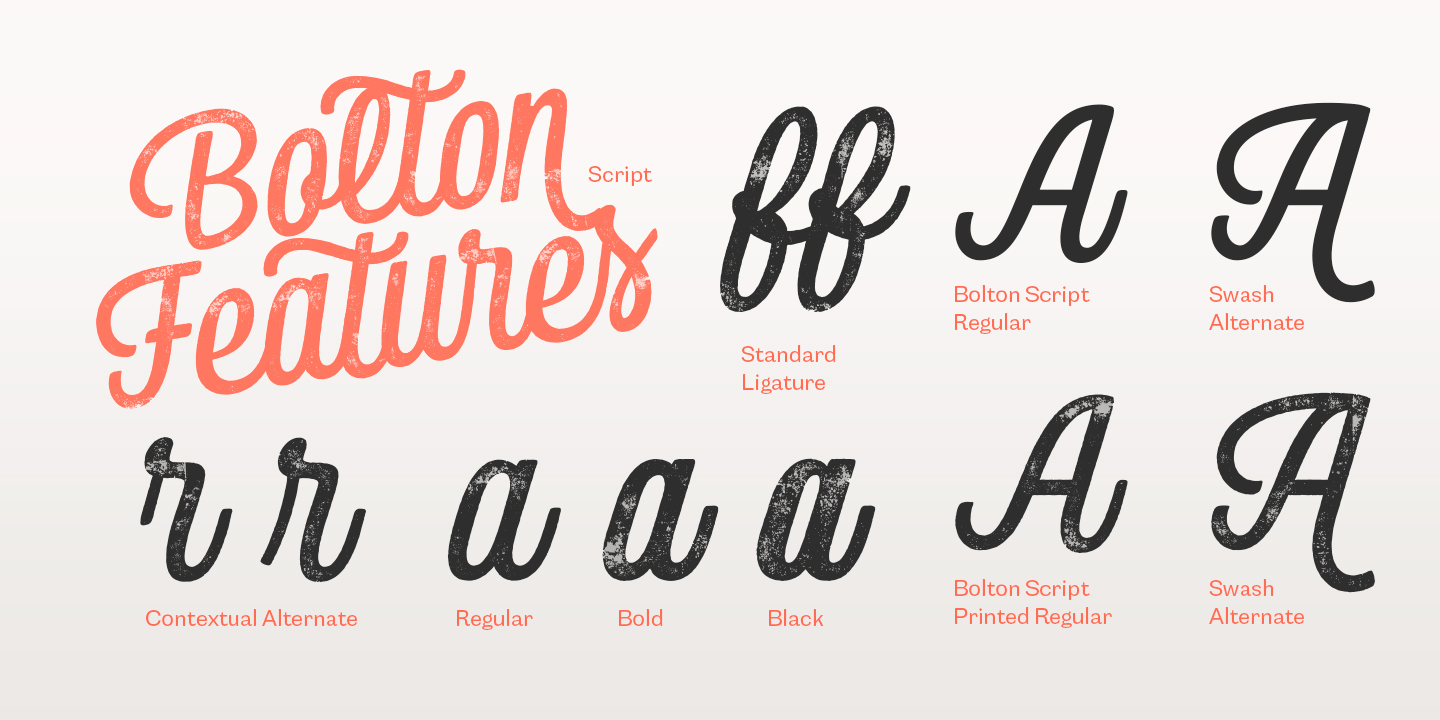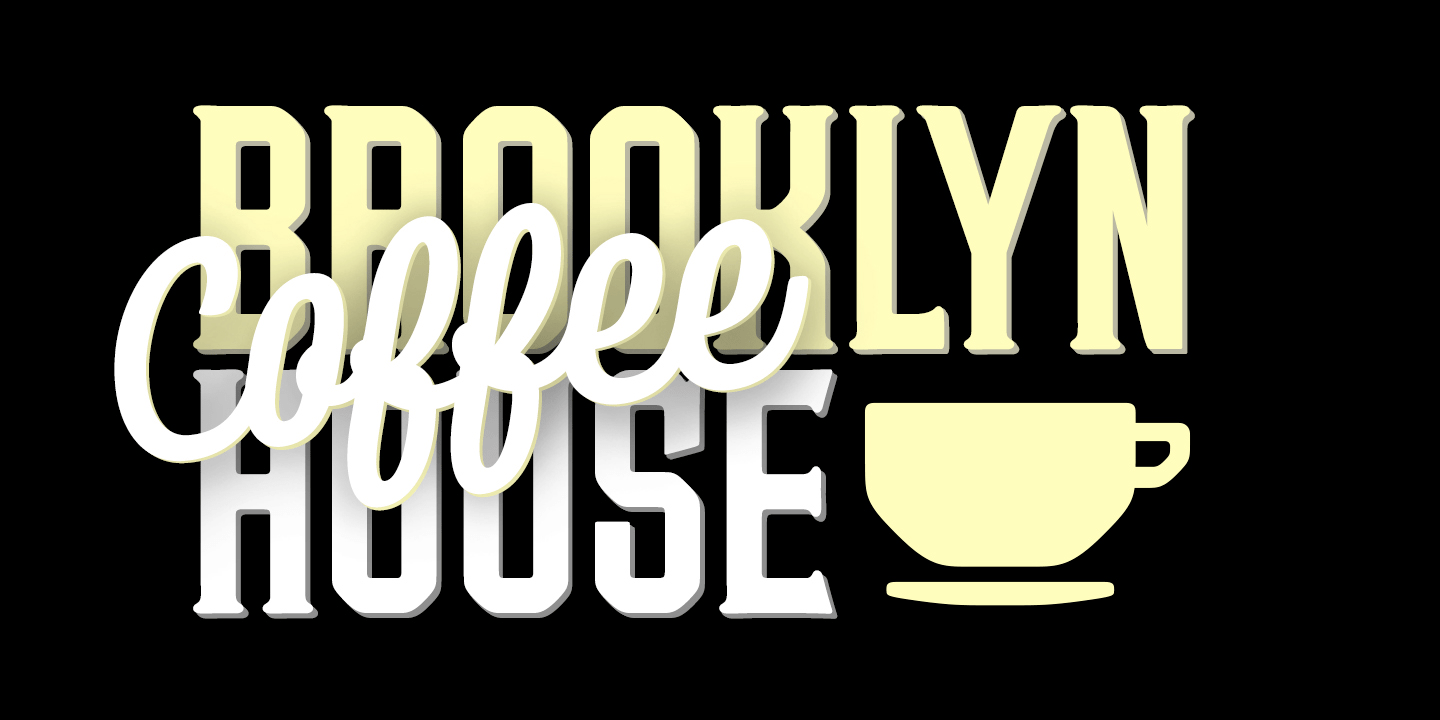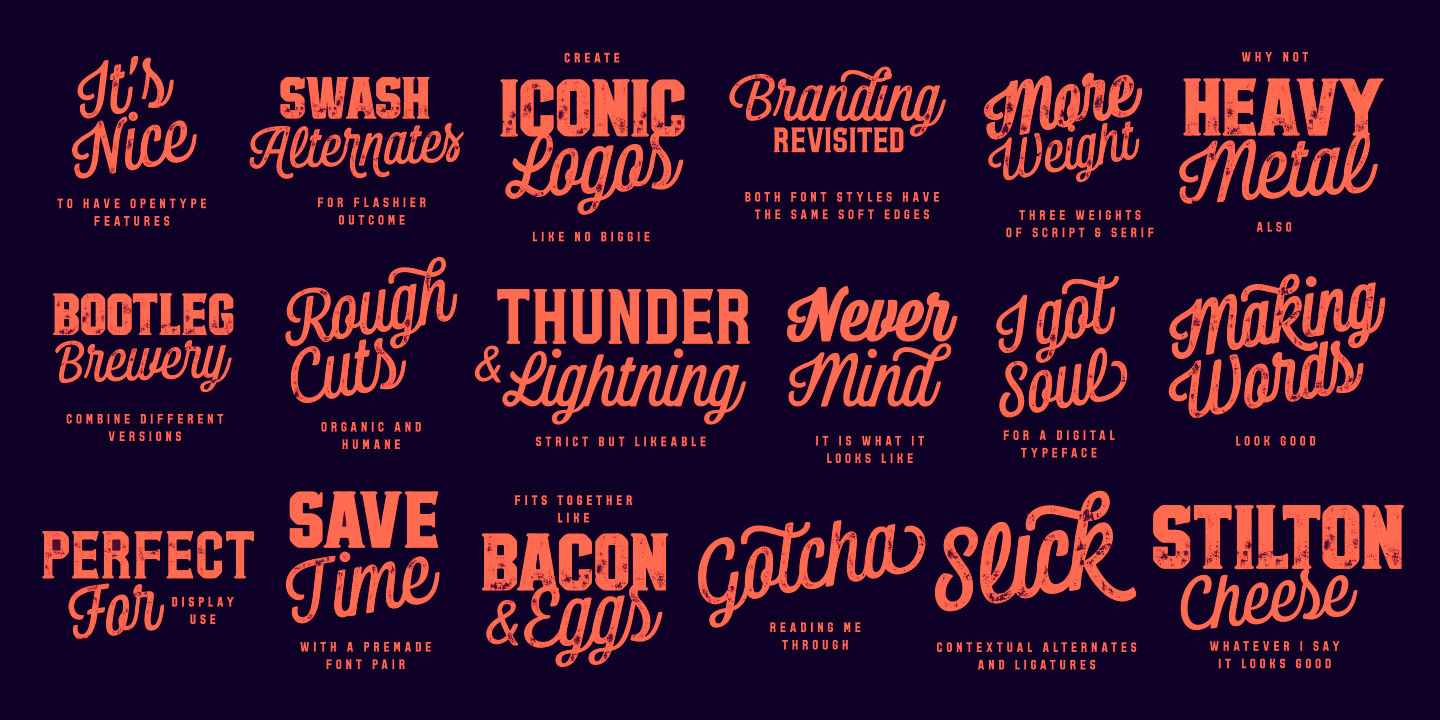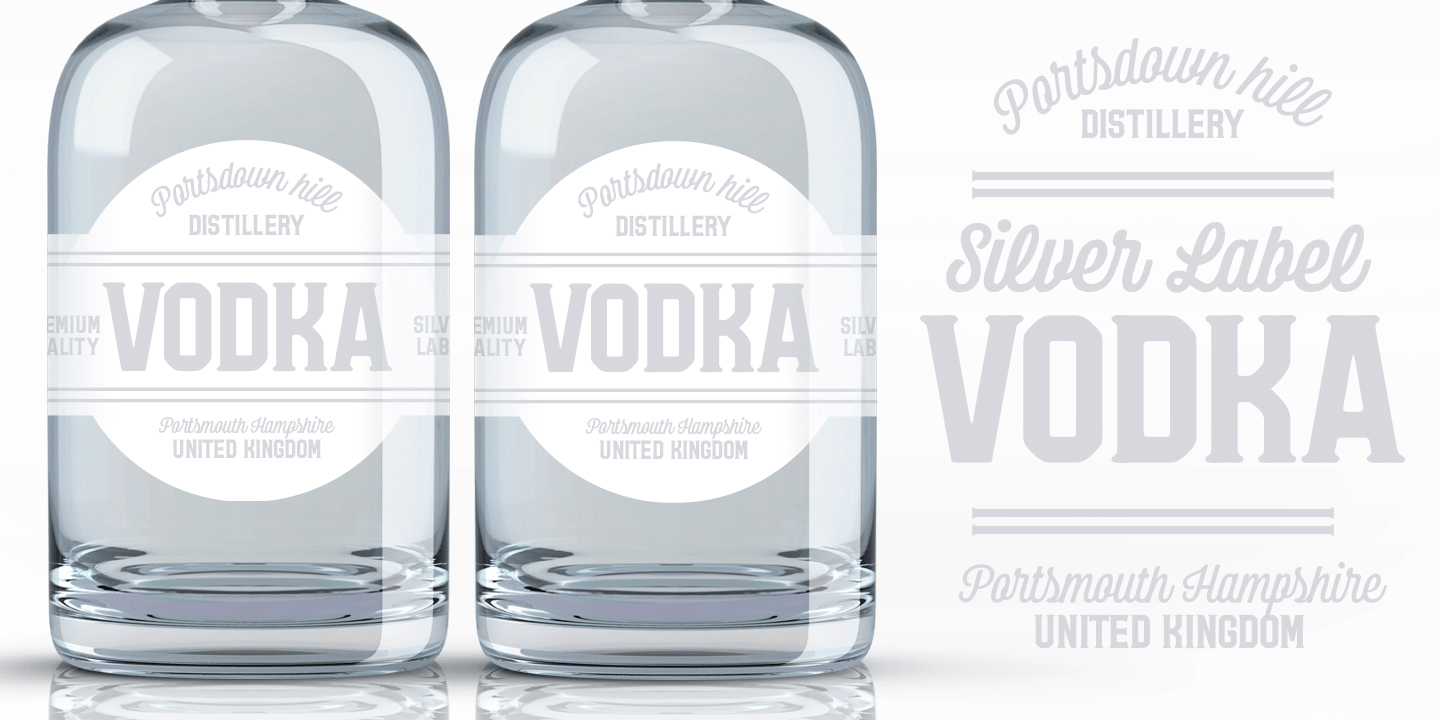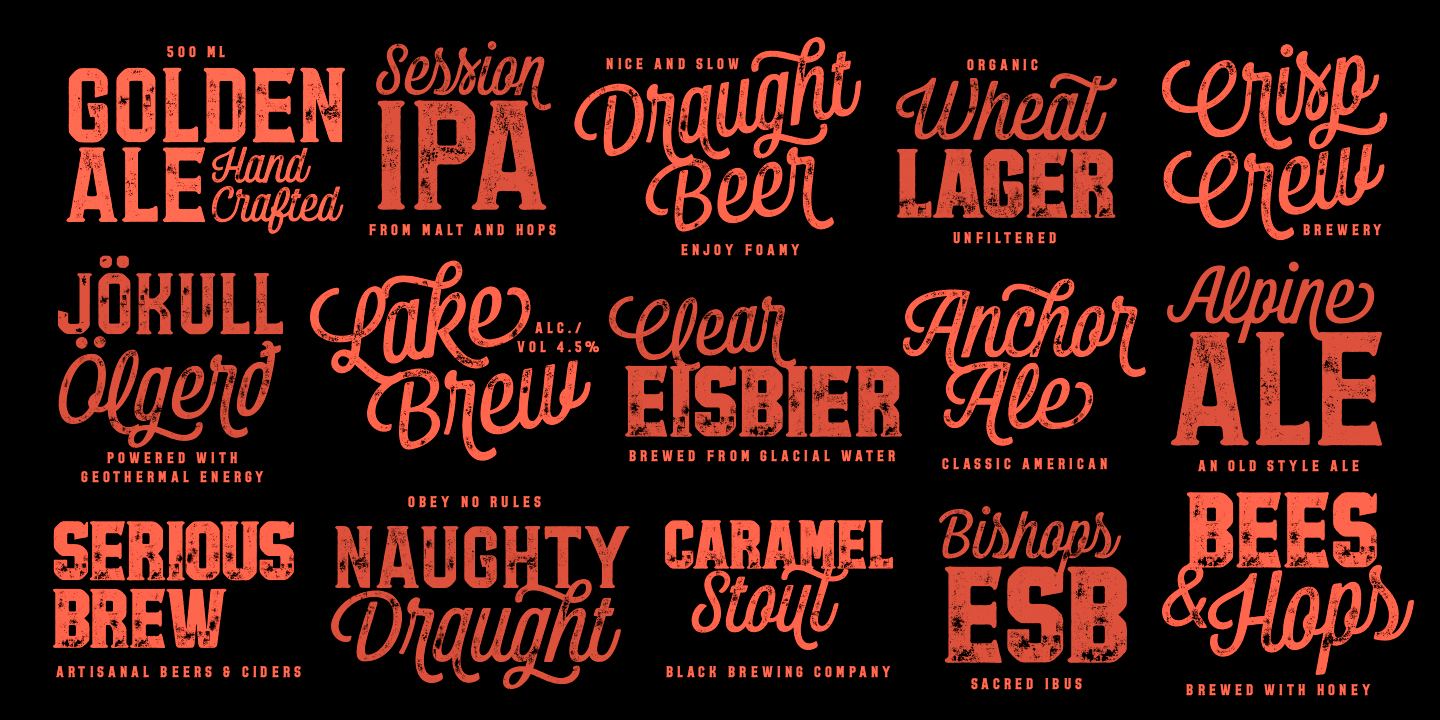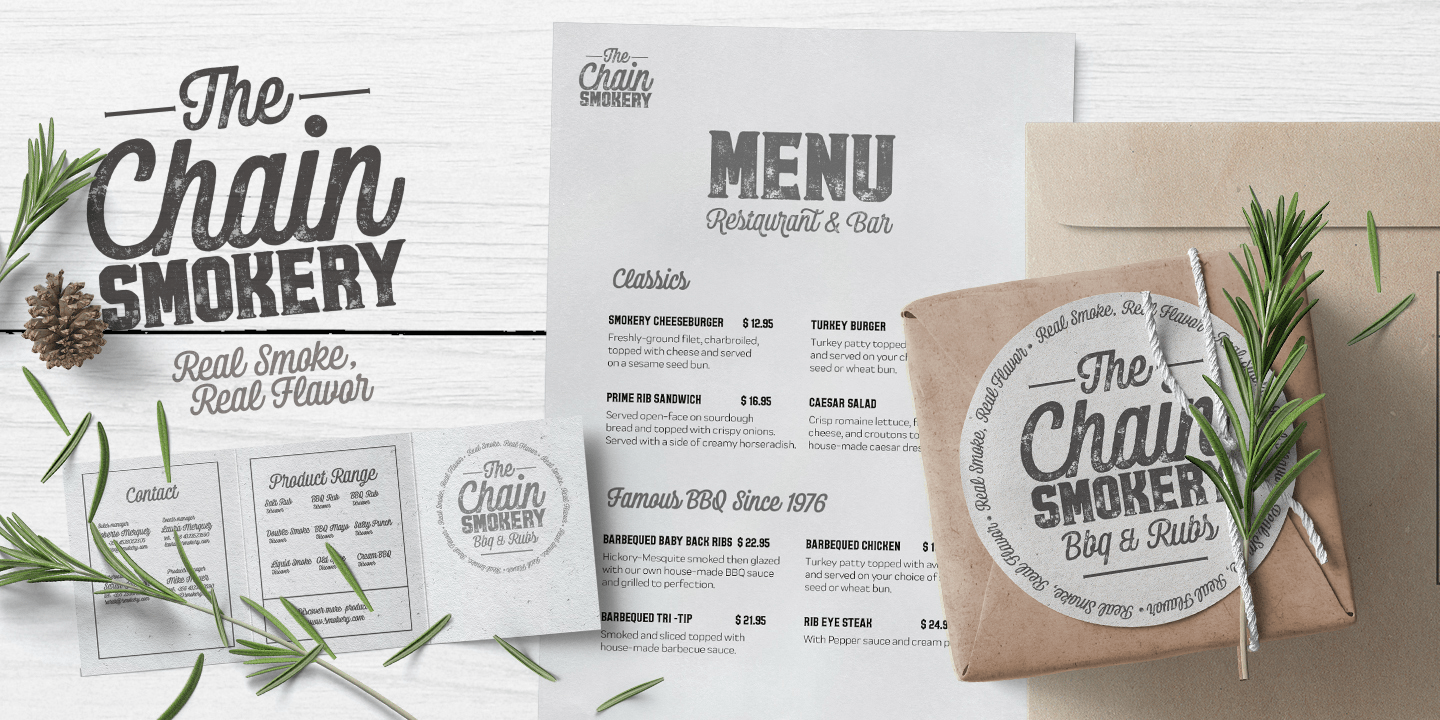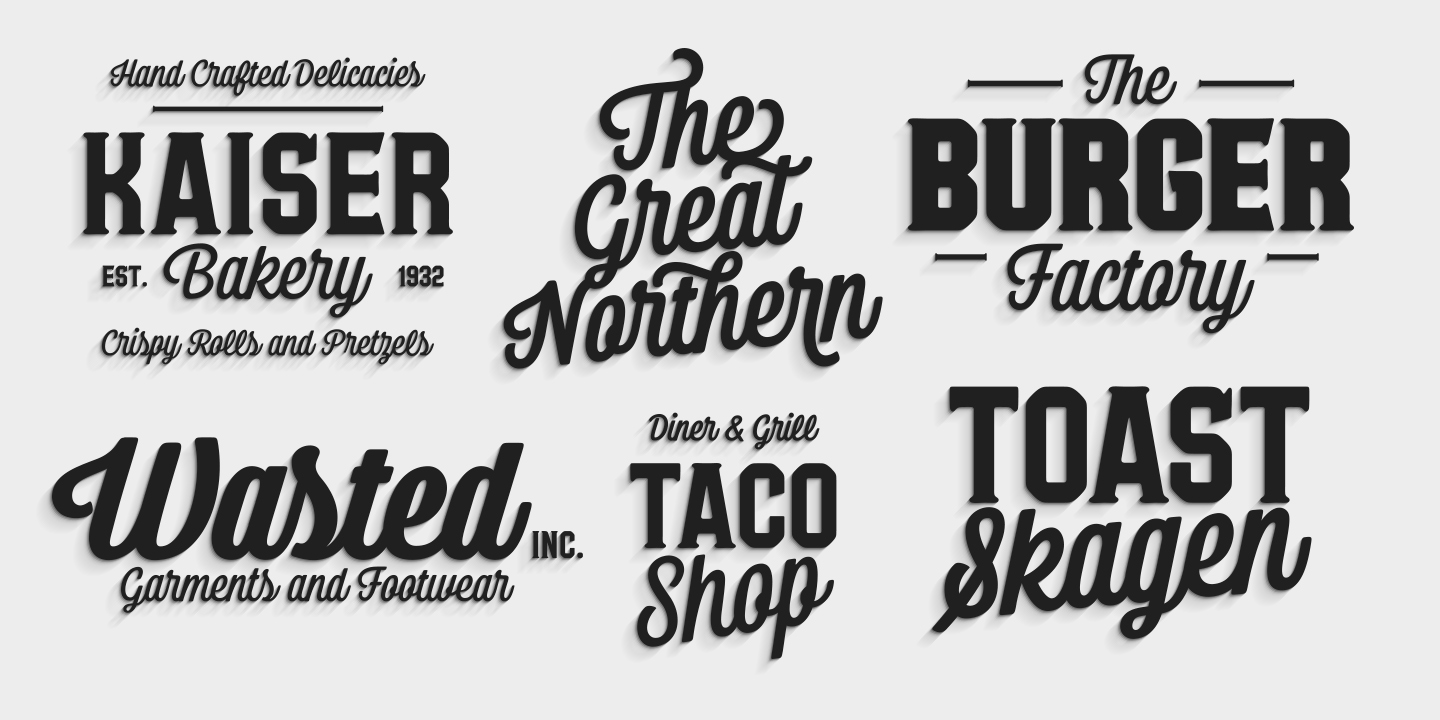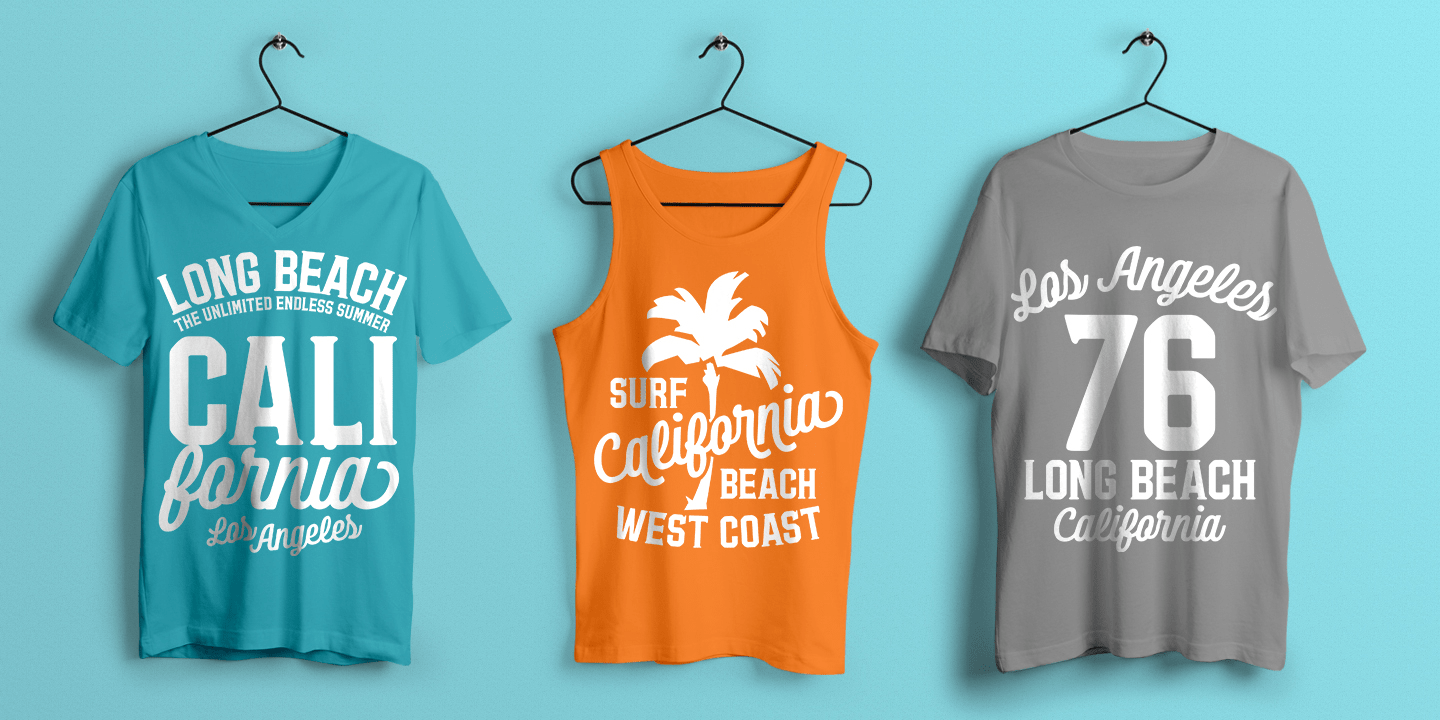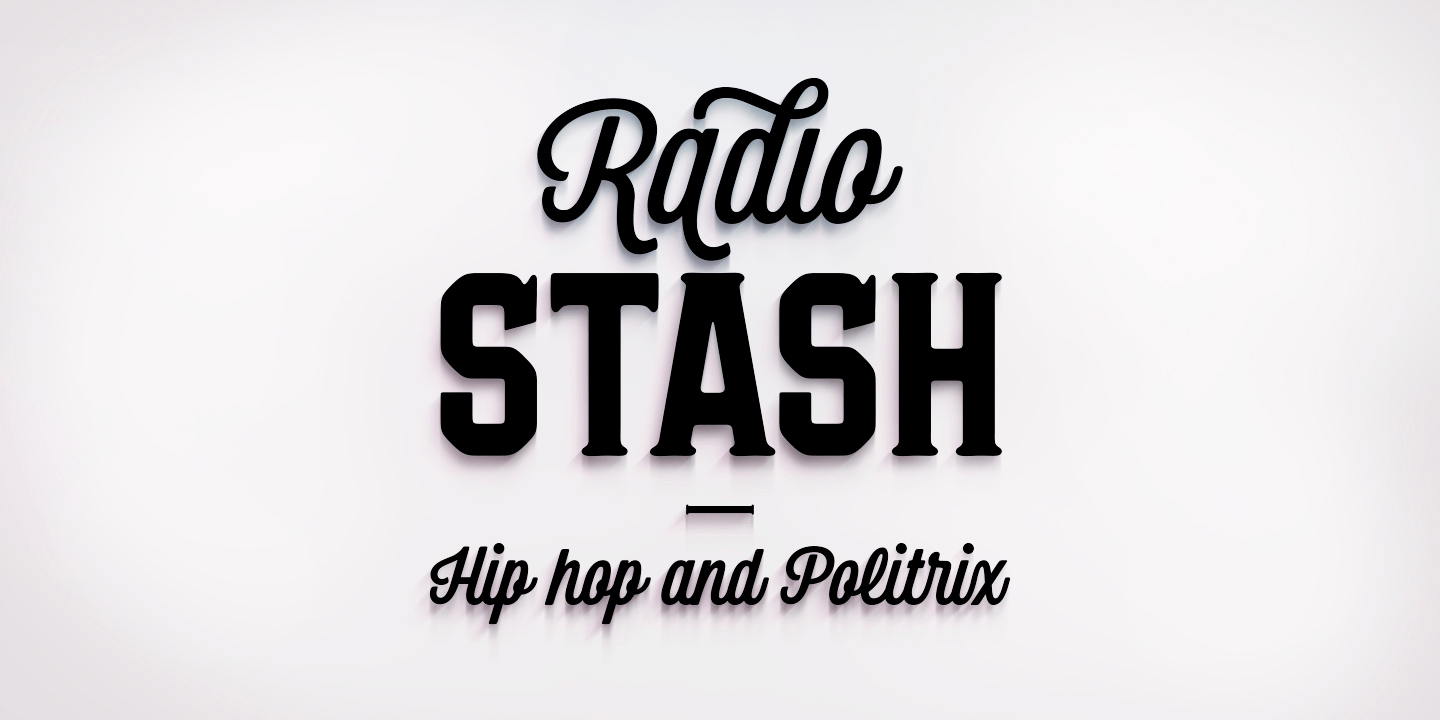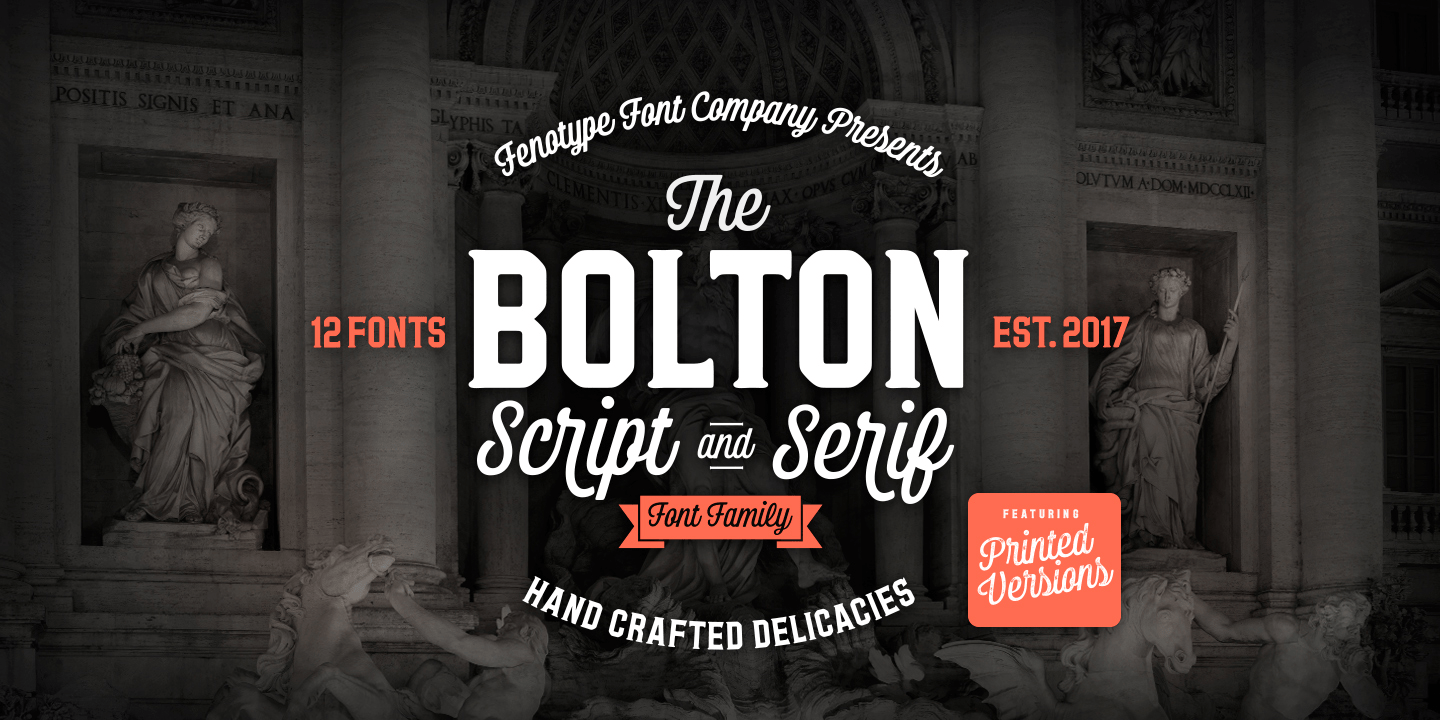
Bolton
About Bolton
Meet Bolton, an ambitious font pack with three weights of script, three of serif, and a pack of extras. Both script and serif fonts are designed with geometric shapes and same soft corners to fit together. Bolton Print is the same family with rough outline…